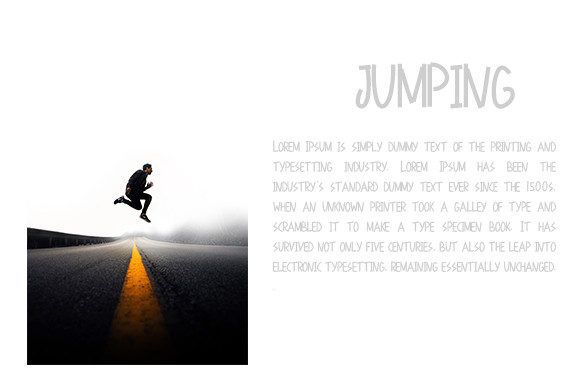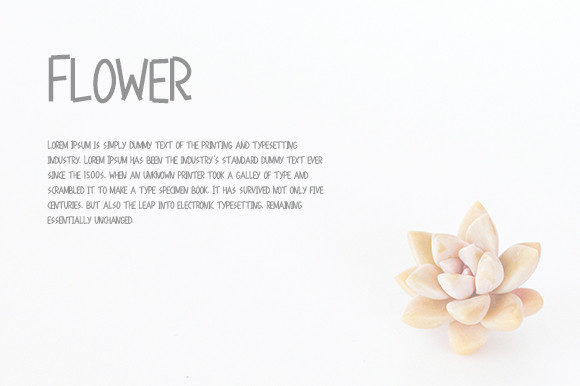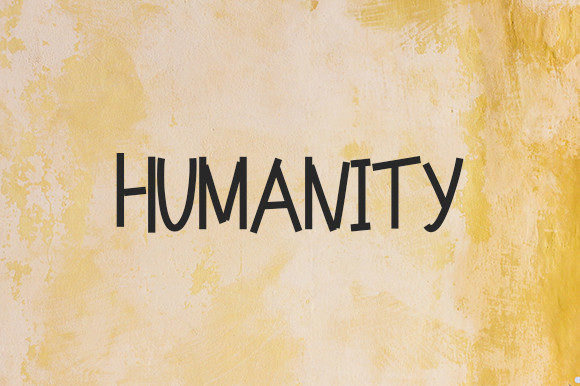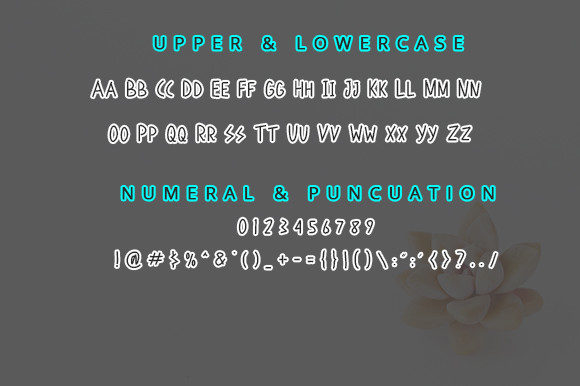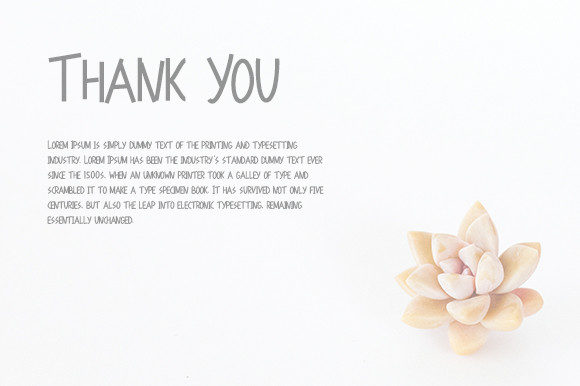
Introducing Hand Crush: The Cool and Quirky Display Font
Are you tired of using the same old fonts for your designs? Do you want to add a touch of playfulness and whimsy to your creations? Look no further than Hand Crush, a cool and quirky display font that’s perfect for cartoon-related designs, children’s games, and any project that requires a lovely touch.
What is Hand Crush Font?
Hand Crush is a unique and eye-catching display font that’s designed to add a personal touch to your designs. With its irregular shapes and imperfect lines, this font has a charming, hand-crafted feel that’s sure to capture the attention of your audience. Whether you’re creating a logo, a poster, or a digital graphic, Hand Crush is the perfect choice for designers and crafters who want to add a bit of personality to their work.
Key Features of Hand Crush Font
- Cool and Quirky Design: Hand Crush has a fun and playful design that’s perfect for projects that require a youthful and energetic feel.
- Display Font: This font is specifically designed for display purposes, making it perfect for headings, titles, and other prominent text elements.
- Cartoon-Related Designs: Hand Crush is ideal for cartoon-related designs, children’s games, and other projects that require a playful and imaginative feel.
- Hand-Crafted Look: With its irregular shapes and imperfect lines, Hand Crush has a charming, hand-crafted look that’s sure to add a personal touch to your designs.
Use Cases for Hand Crush Font
Hand Crush is a versatile font that can be used in a variety of design projects, including:
- Cartoon and Animation Projects: Hand Crush is perfect for cartoon and animation projects, such as character designs, title sequences, and promotional materials.
- Children’s Games and Toys: This font is ideal for children’s games, toys, and other products that require a playful and imaginative feel.
- Posters and Flyers: Hand Crush can be used to create eye-catching posters and flyers for events, promotions, and other marketing campaigns.
- Digital Graphics: This font can be used to create digital graphics, such as social media graphics, blog headers, and other online content.
Why Choose Hand Crush Font?
There are many reasons why Hand Crush is a great choice for designers and crafters, including:
- Unique and Eye-Catching Design: Hand Crush has a unique and eye-catching design that’s sure to capture the attention of your audience.
- Easy to Read: Despite its quirky design, Hand Crush is easy to read and can be used for both short and long text elements.
- Versatile: This font can be used in a variety of design projects, from cartoon and animation projects to posters and digital graphics.
- High-Quality: Hand Crush is a high-quality font that’s designed to deliver exceptional results in any design project.
Tips for Using Hand Crush Font
Here are a few tips for using Hand Crush font in your design projects:
- Use it for Headings and Titles: Hand Crush is perfect for headings and titles, where its quirky design can really shine.
- Experiment with Colors: This font looks great in a variety of colors, so don’t be afraid to experiment and find the perfect color scheme for your design.
- Pair it with Other Fonts: Hand Crush can be paired with other fonts to create a unique and interesting design.
In conclusion, Hand Crush is a cool and quirky display font that’s perfect for designers and crafters who want to add a touch of playfulness and whimsy to their designs. With its irregular shapes and imperfect lines, this font has a charming, hand-crafted feel that’s sure to capture the attention of your audience. Whether you’re creating a cartoon-related design, a children’s game, or just any project that requires a lovely touch, Hand Crush is an amazing choice.